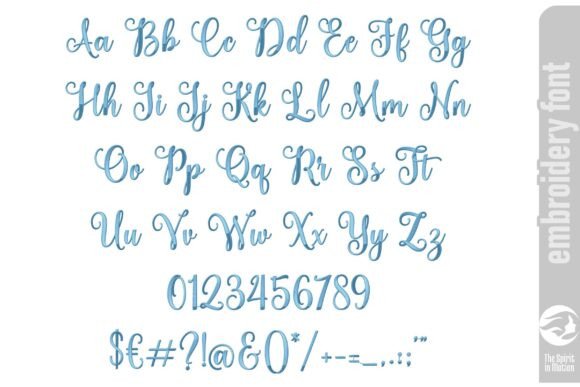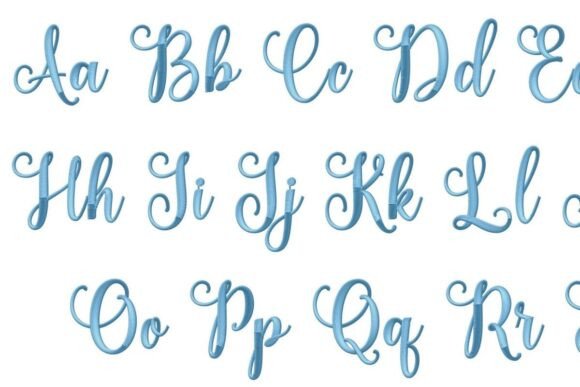
Angista Script Large Embroidery Font
Imbue your embroidery endeavors with a chic and contemporary feel using this resplendent script font. Customizing attire, home accents, or accessories achieves a whole new level of sophistication with its rhythmic design features. This script font instills an air of refinement and allure to monograms, catchphrases, and artistic embellishments.